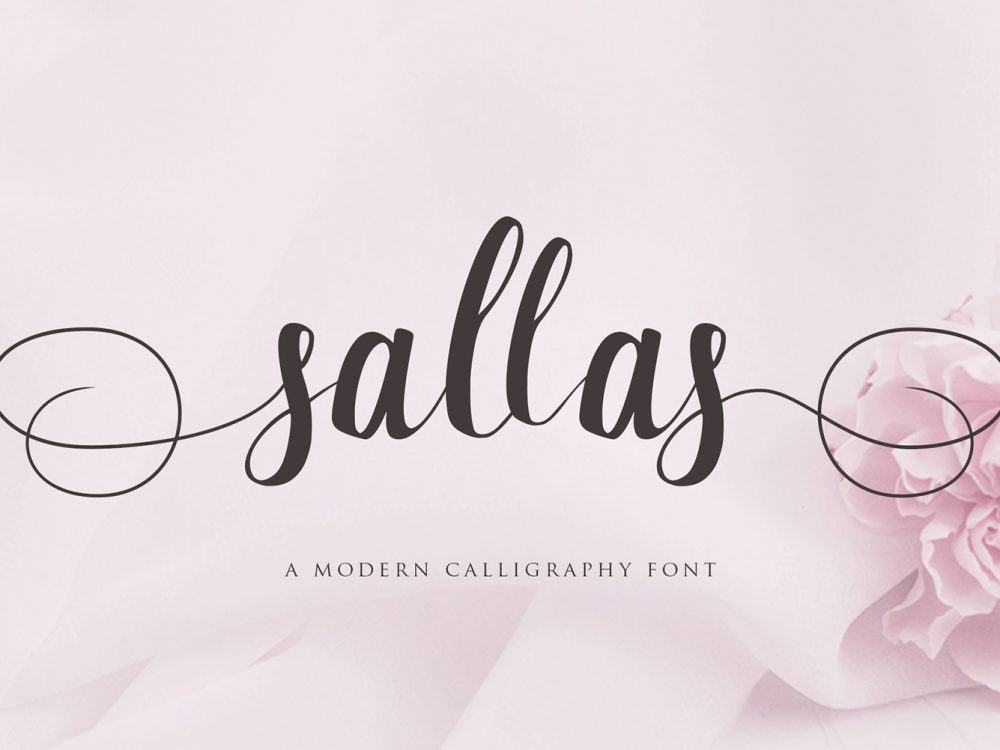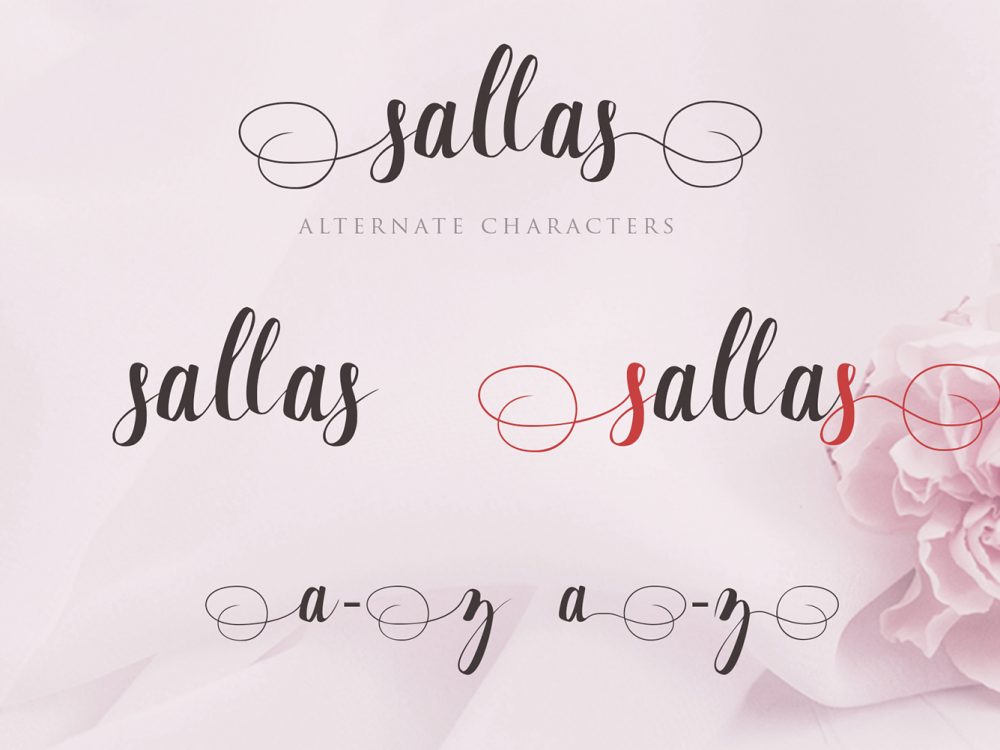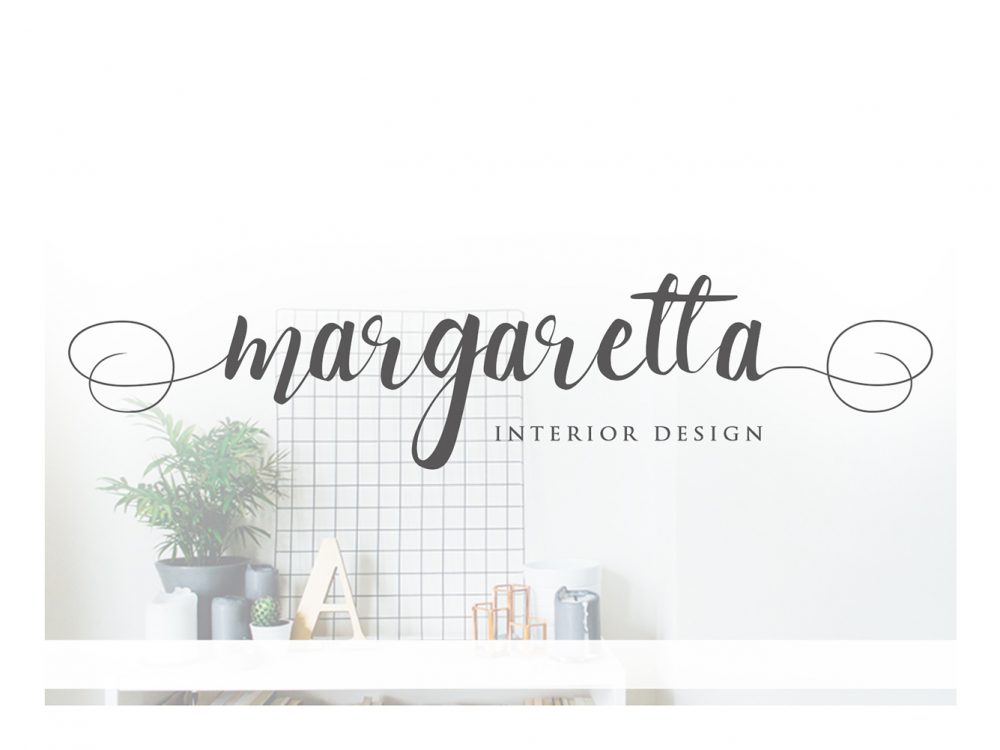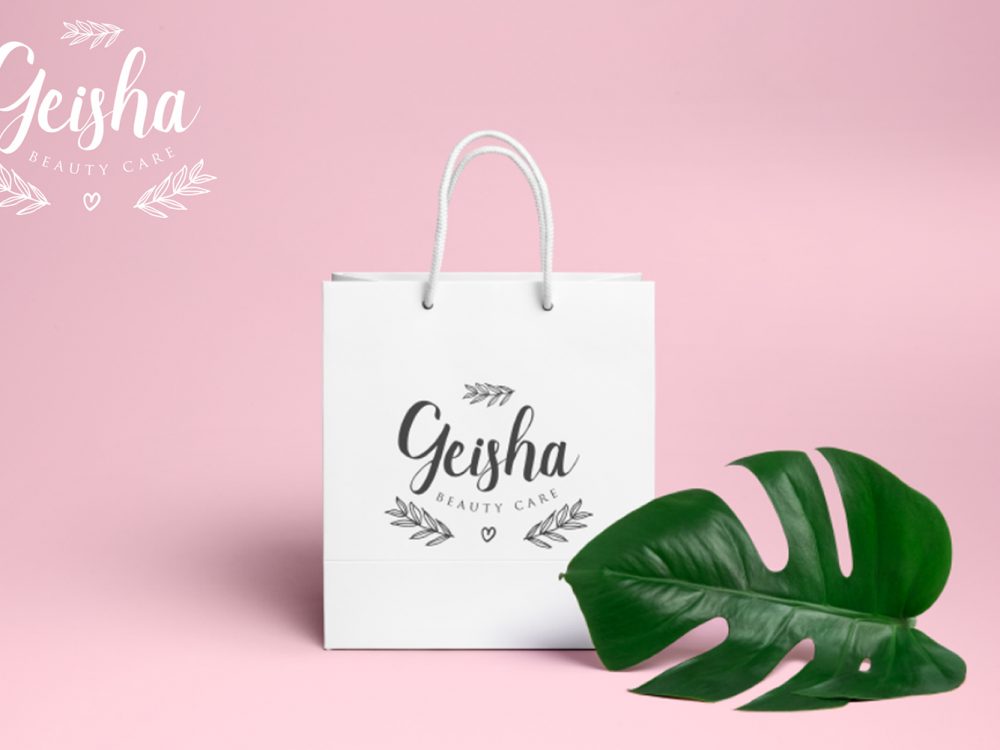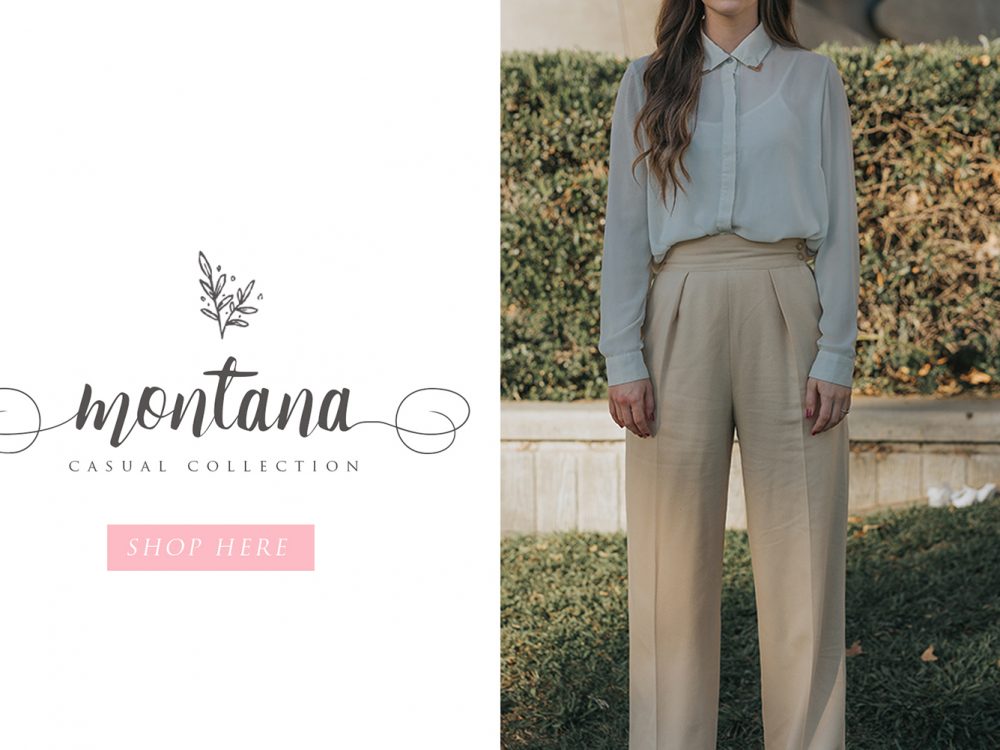
Sallas Free Font
Sallas Free Font is an interesting modern scripting font with a modern style. This font is very suitable for creating various projects that require a scripted calligraphic font. Use this font to create memorable romantic posters, wedding invitations, greeting cards, branding, flyers, t-shirt and pillow prints, and more. Improve your professional level using this font. If you like it don’t forget to check out the full version.